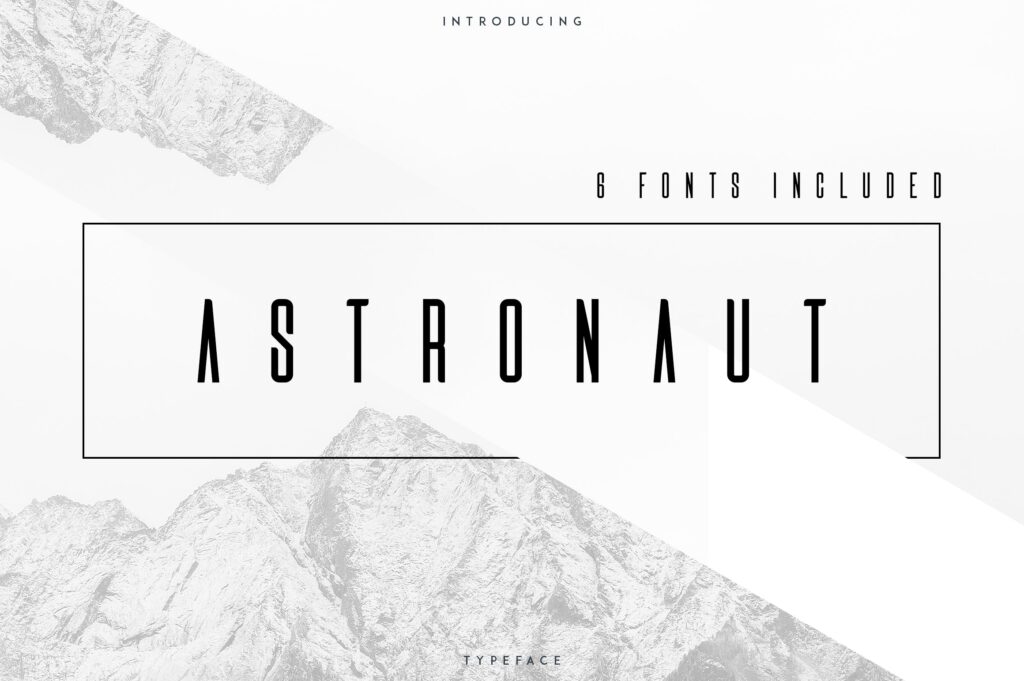
It’s elegant, clean font with 6 styles and multilingual support. It’s a very versatile font that works great in large and small sizes.
Astronaut Font